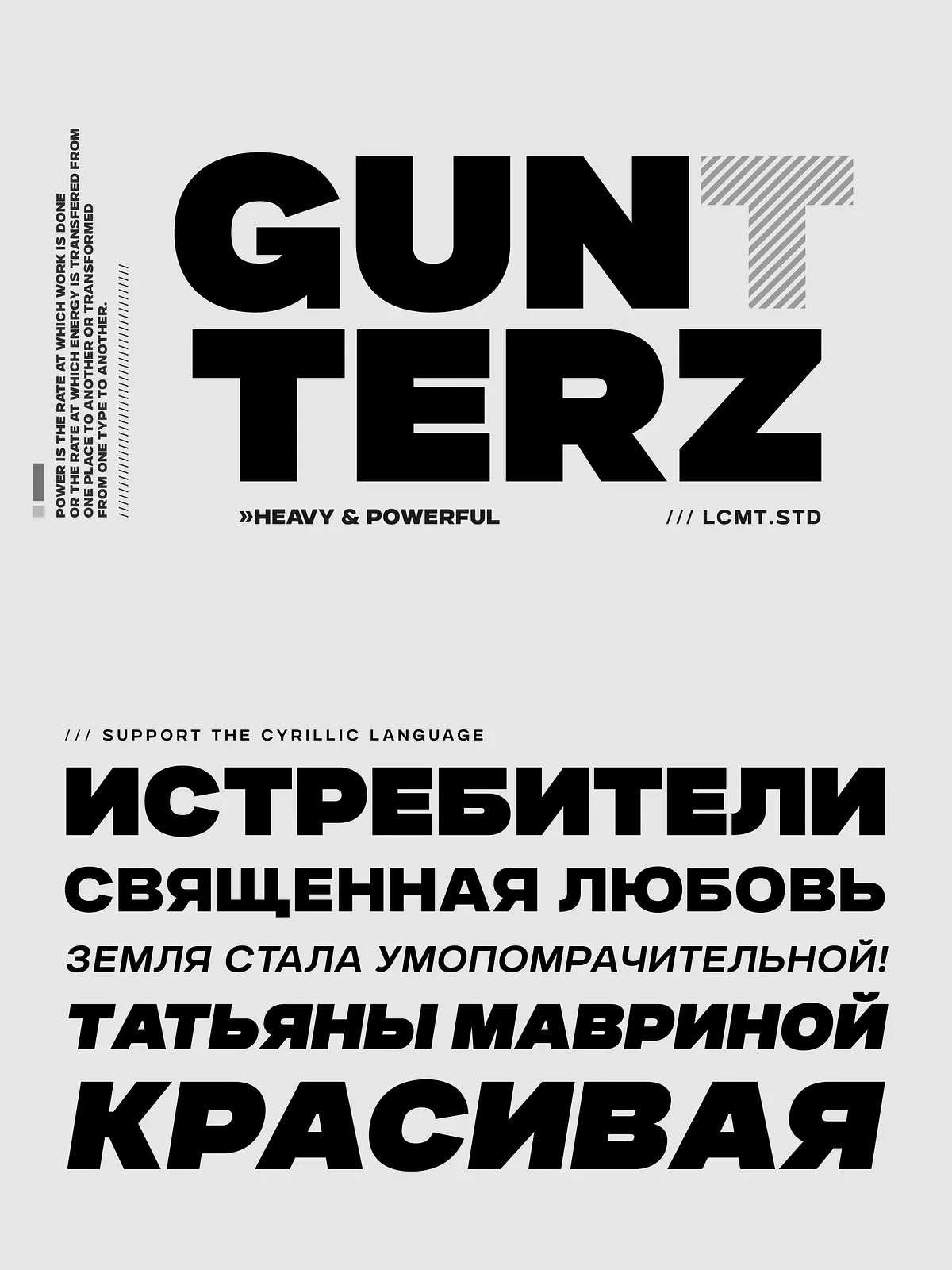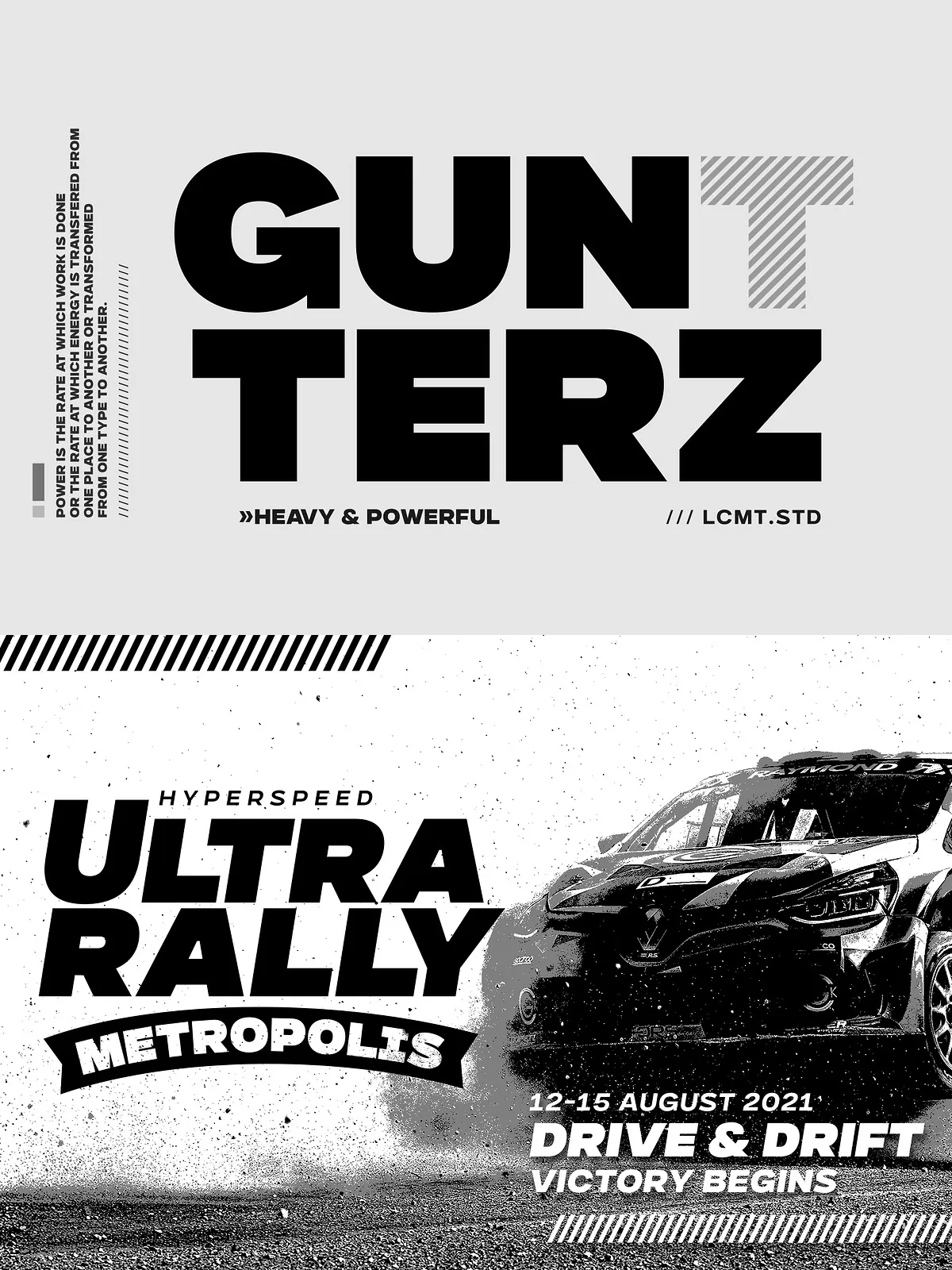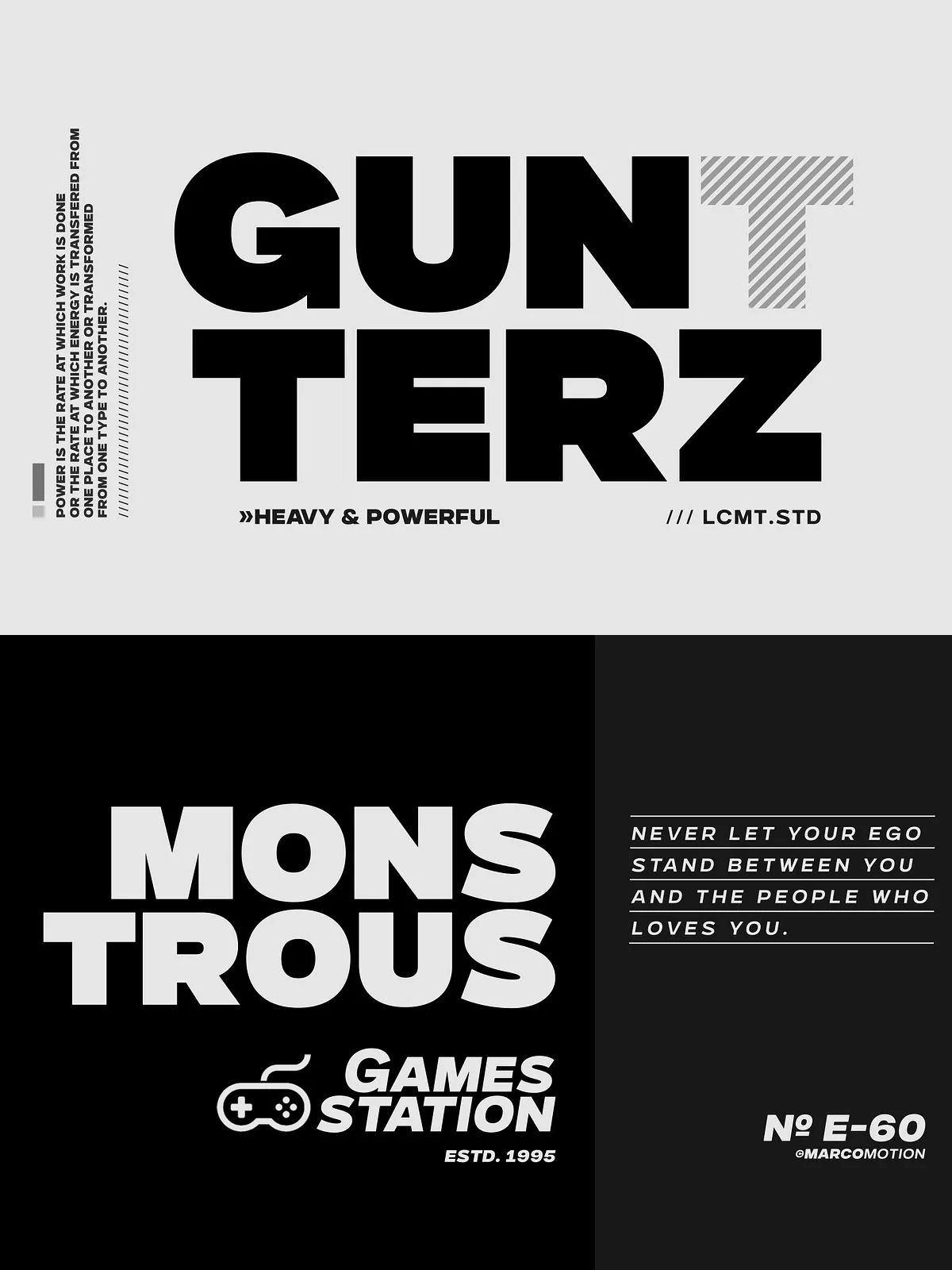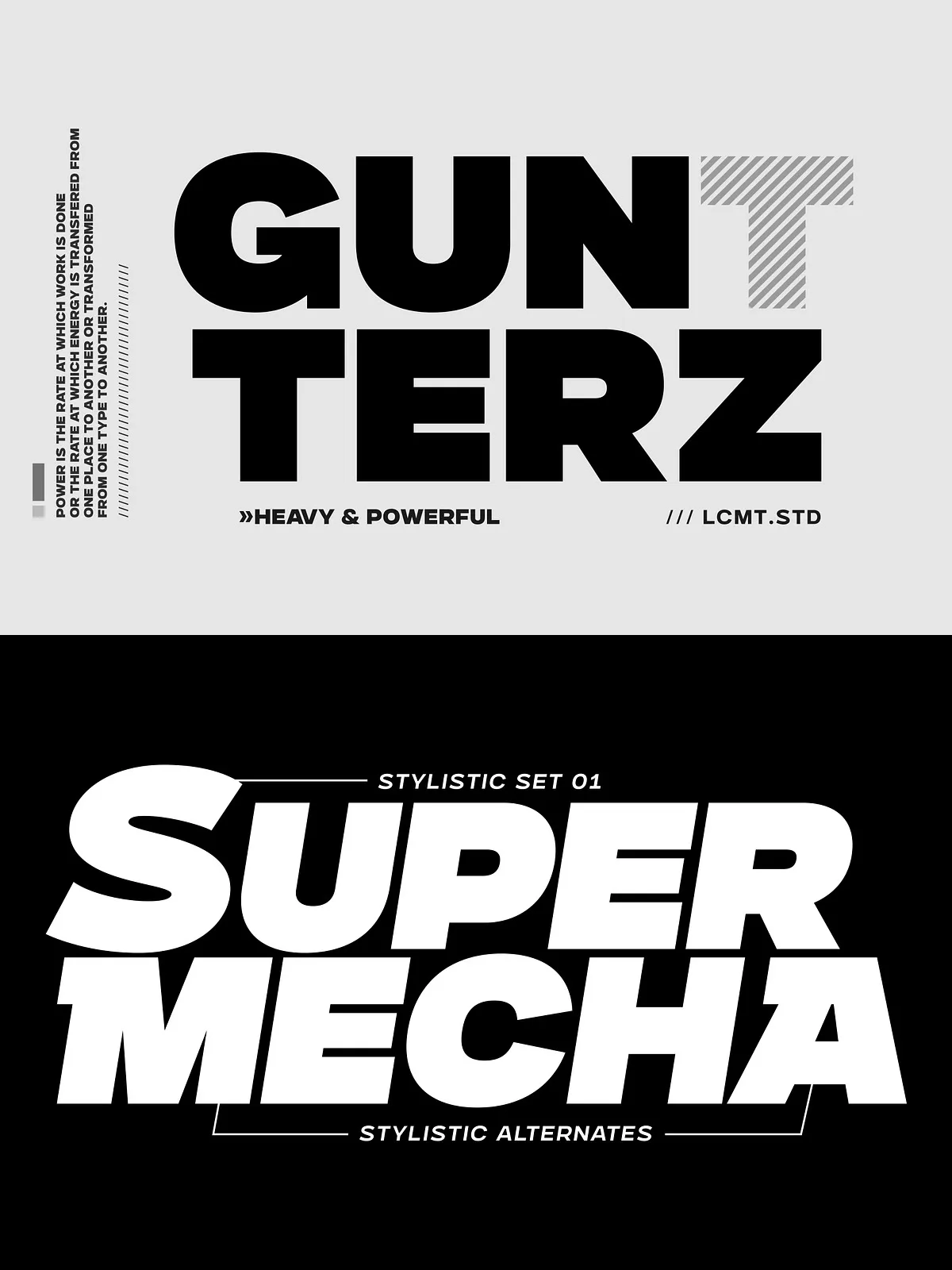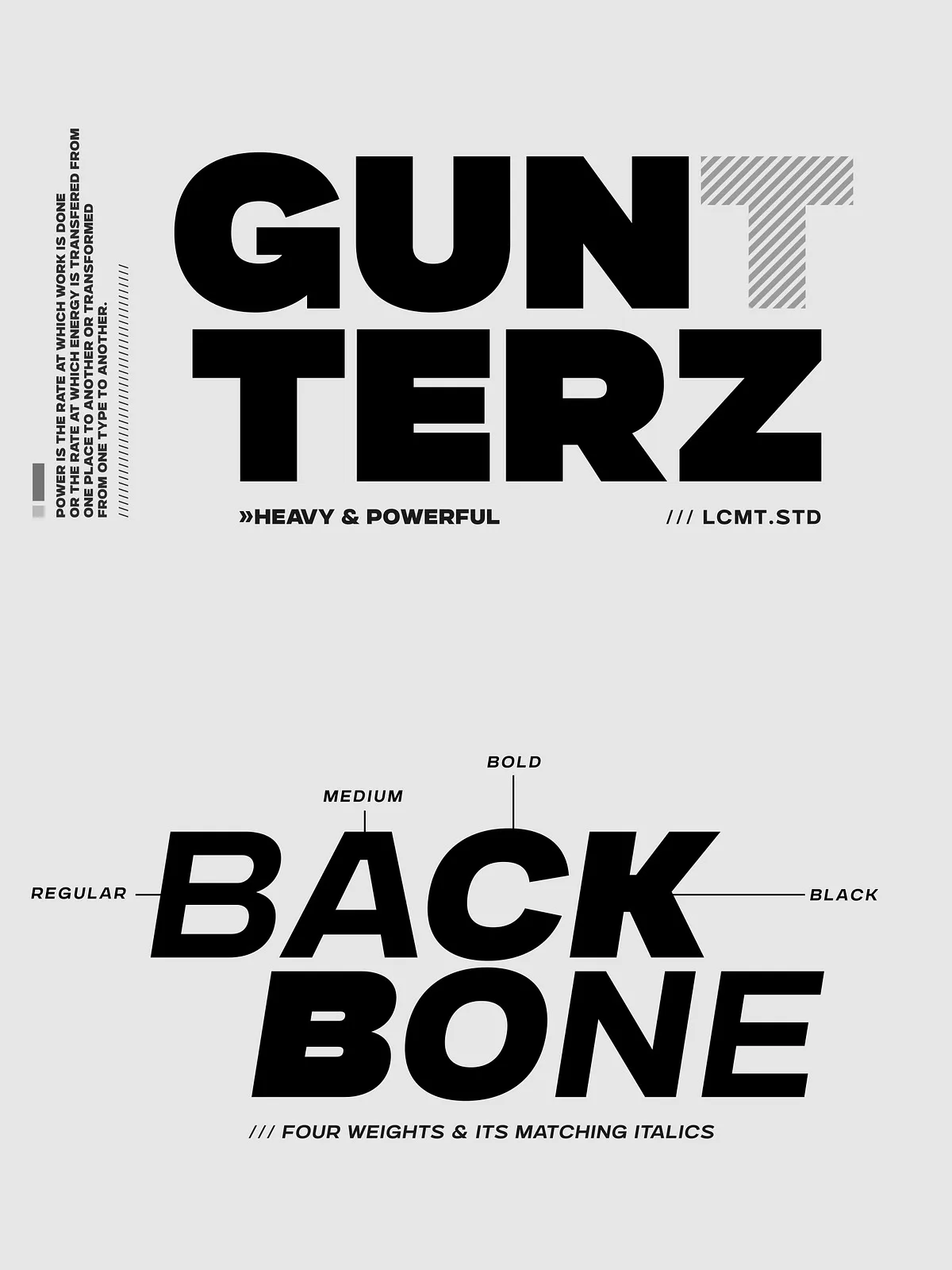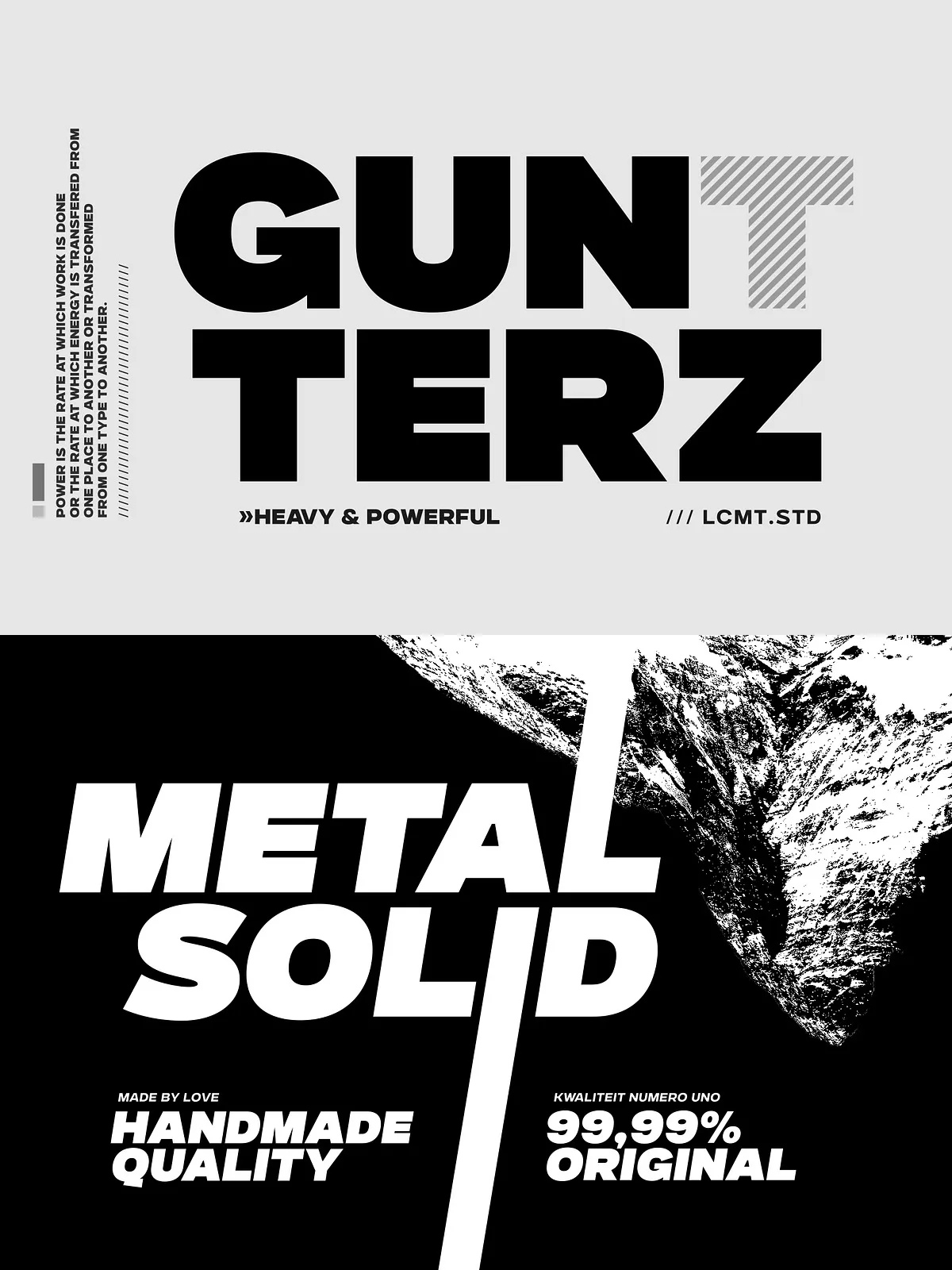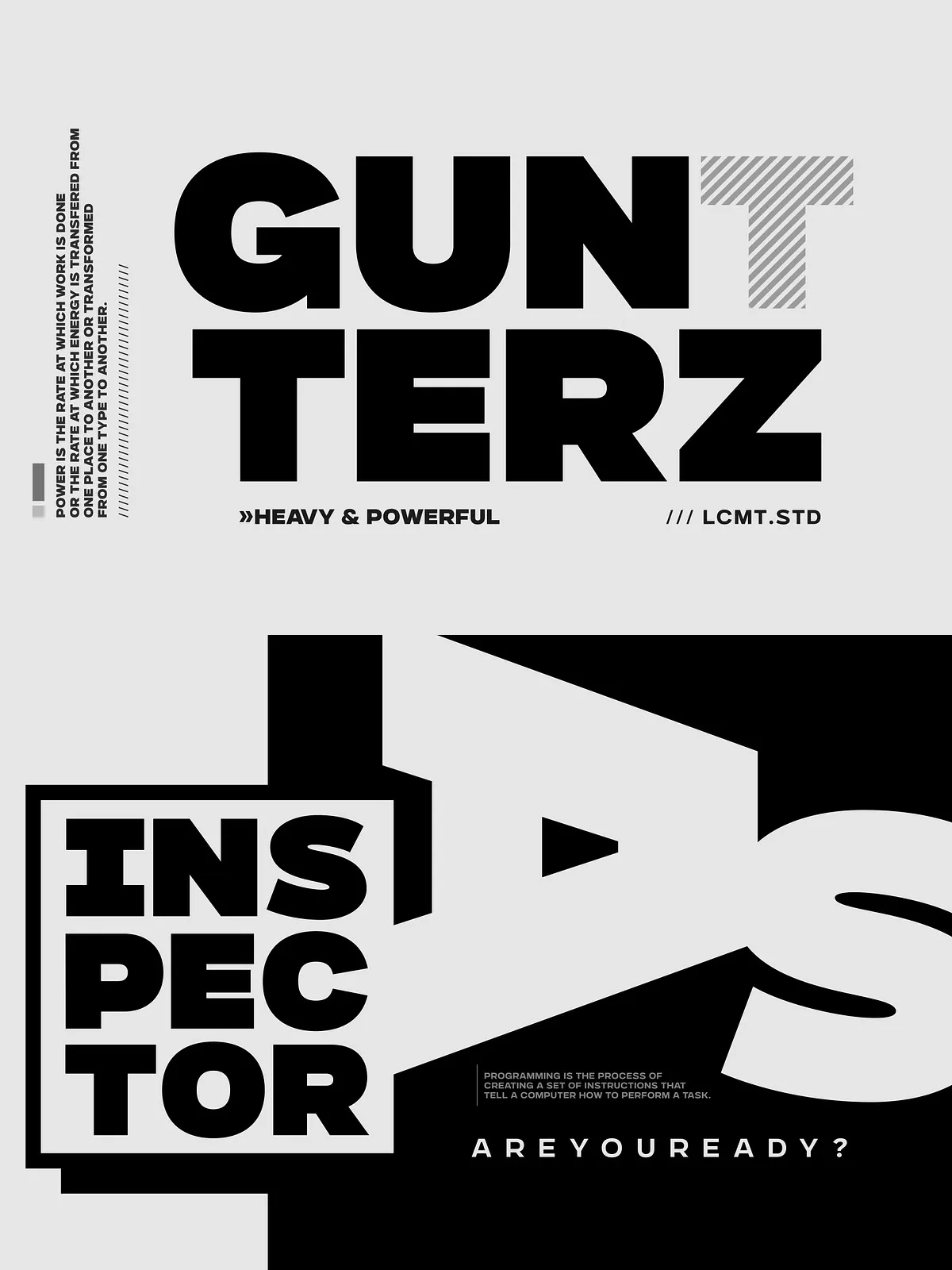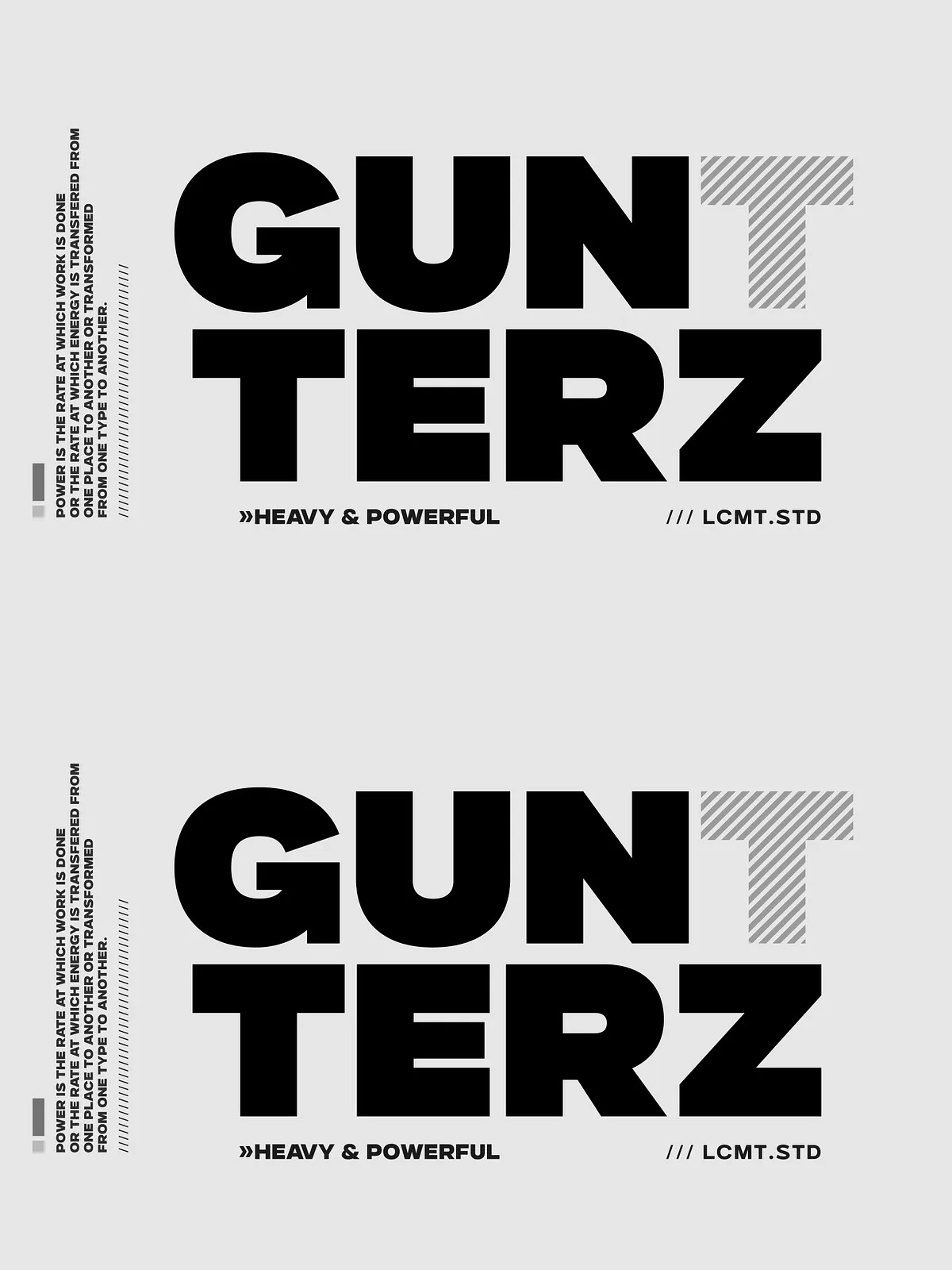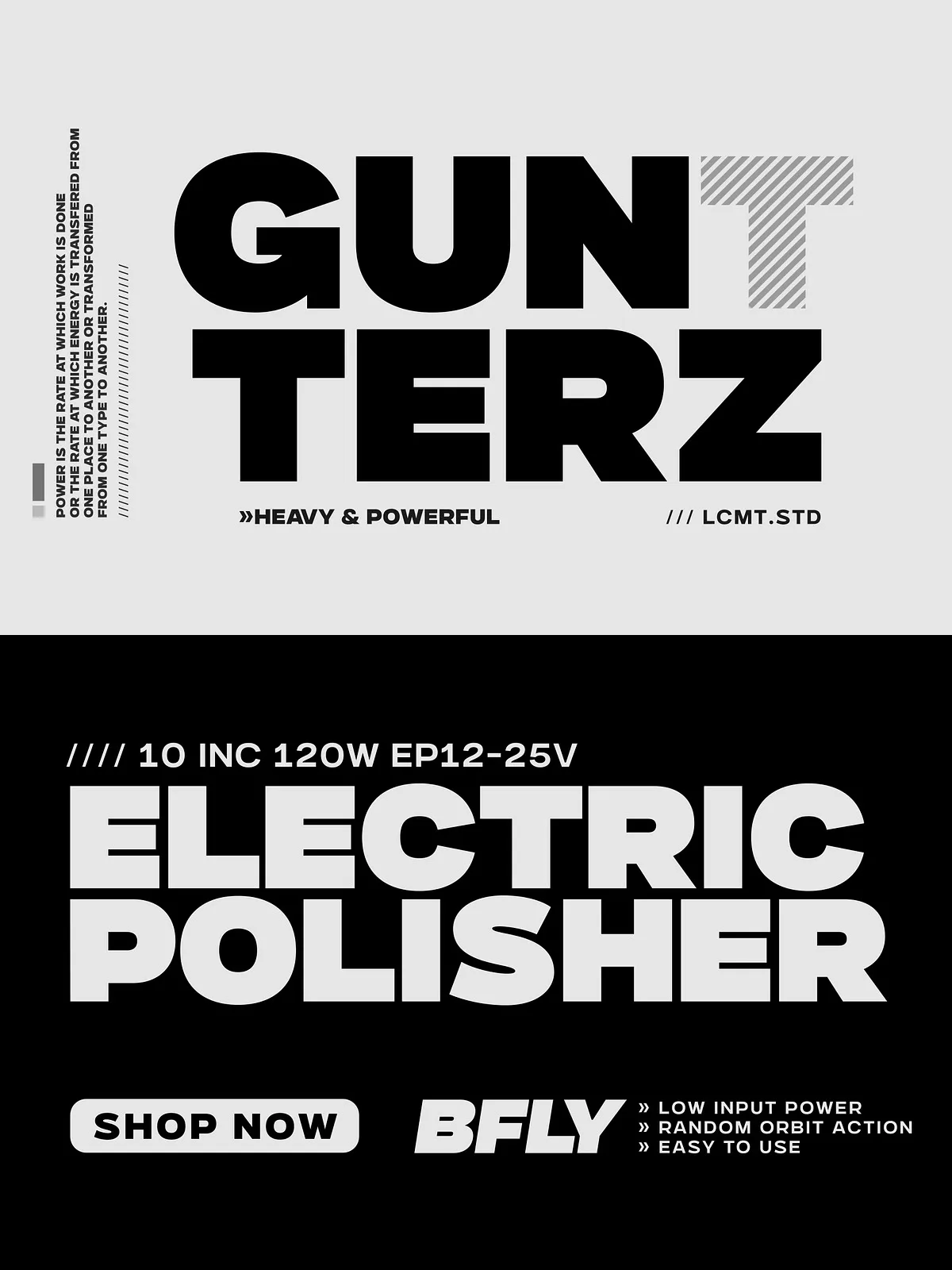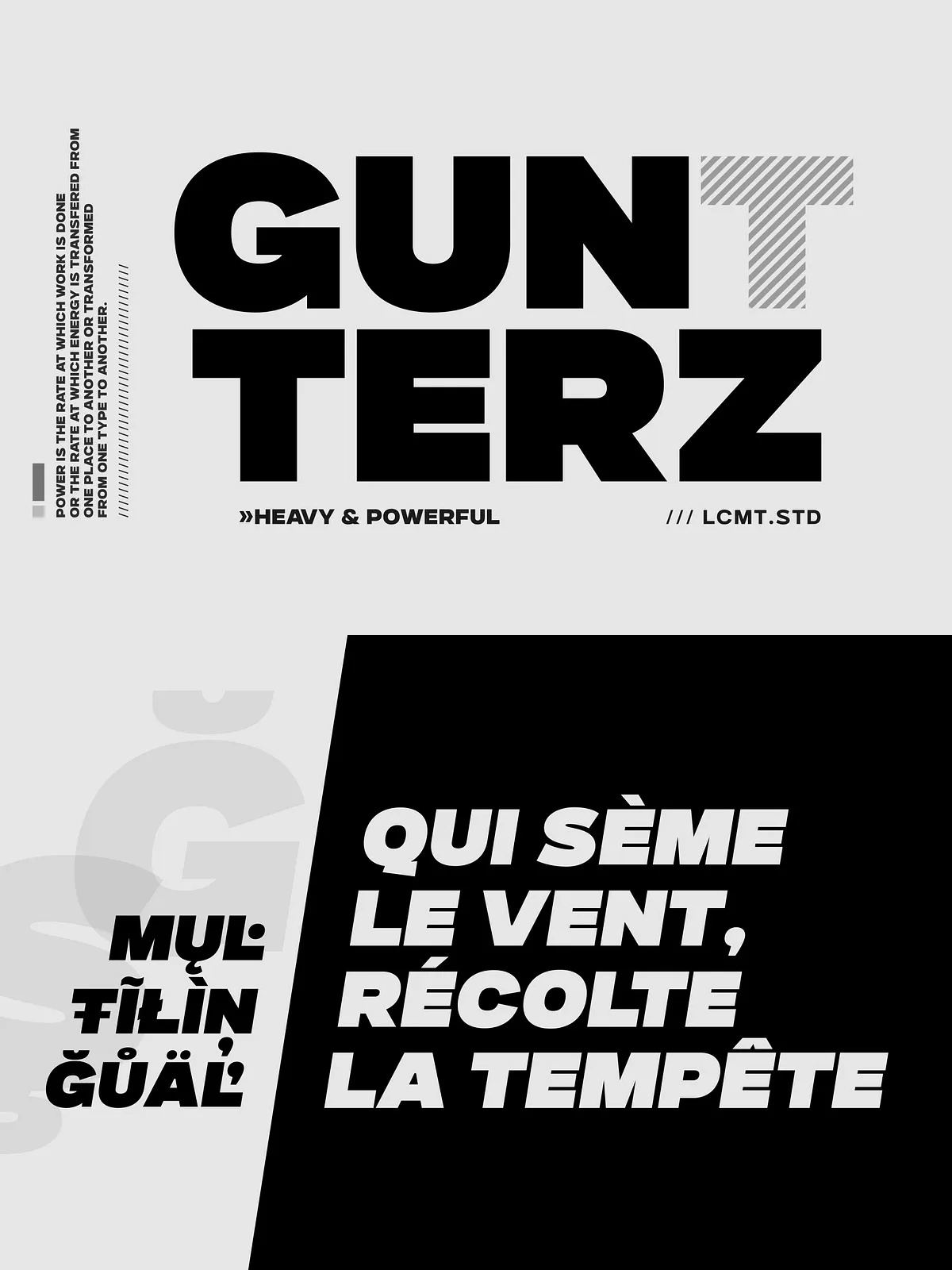
Gunterz doesn’t just stand out — it explodes onto the page with raw, unfiltered power. Engineered for impact, this all-caps sans-serif is a weapon of visual dominance. Whether you’re designing a blockbuster movie title, a high-energy sports campaign, or a futuristic brand identity, Gunterz doesn’t ask for permission — it takes center stage.
Built for Maximum Impact: 4 Weights, One Mission
Gunterz is forged in four distinct weights: Regular, Bold, Extrabold, and now, a newly added ExtraBold style. Each version delivers a unique kind of force. Use Regular for sharp, clean headlines. Stack Bold for commanding presence. Push into Extrabold for maximum authority. And unleash the new ExtraBold for when you need gravity-defying weight and presence.
Every weight ships with its matching Italic — a vital tool for adding contrast, rhythm, and sophistication. Whether you’re crafting a sleek motion graphic or a dynamic poster, the Italics cut through with a sharp, stylized energy.
Refined for Perfection: Critical Updates & New Features
Gunterz has been sharpened by real-world use. We’ve addressed critical issues and elevated its performance:
- Fixed & Improved Kerning: Eliminated awkward spacing. Now, every letter pair sits in perfect balance.
- Enhanced Cyrillic Kerning: Precision support for Russian, Ukrainian, and other Cyrillic languages. Global reach, flawless execution.
- Added: ExtraBold Weight: Now, the most powerful version of Gunterz is officially available — for when you need extreme impact.
- Experimental Variable Font: A new frontier of flexibility. Dynamically adjust weight, width, and optical size in real time for web, animation, and UI — a game-changer for modern design workflows.
Where Power Meets Precision: Applications That Demand Gunterz
This is not a font for background noise. It’s a tool for projects that need to break through the clutter. Apply Gunterz where strength and clarity win:
- Poster Titles & Movie Posters – Make your campaign impossible to ignore.
- Packaging Design – Turn your product into a statement on the shelf.
- Logotypes & Brand Identities – Build a brand that feels powerful, modern, and fearless.
- Headlines & Editorial Display – Command the reader’s attention from the first glance.
- Motion Graphics & Video Titles – Add kinetic energy to your animations.
- Sports & Event Promotions – Amplify the adrenaline of live competition.
- Futuristic & Tech Branding – Signal innovation, speed, and digital edge.
Pro Tips: Maximize the Power of Gunterz
- Pair with Minimalism: Let Gunterz scream on its own. Pair it with a clean, simple sans-serif or neutral background for maximum contrast.
- Use Italic for Rhythm: Apply the Italic style to create dynamic flow in long headlines or section headers.
- Test Variable Font on Screen: Use the Experimental Variable Font to preview changes live in Figma, Illustrator, or web code.
- Unlock OpenType Features: Access stylistic alternates and sets to introduce subtle uniqueness and visual richness.
Own Your Message. Be Unforgettable.
Gunterz isn’t just a typeface. It’s a mindset. It’s the refusal to fade into the background. It’s the decision to say something big — and say it loud.
Whether you’re a designer, brand strategist, motion artist, or creative director, Gunterz gives you the tools to project confidence, clarity, and power. It’s engineered to turn words into monuments.